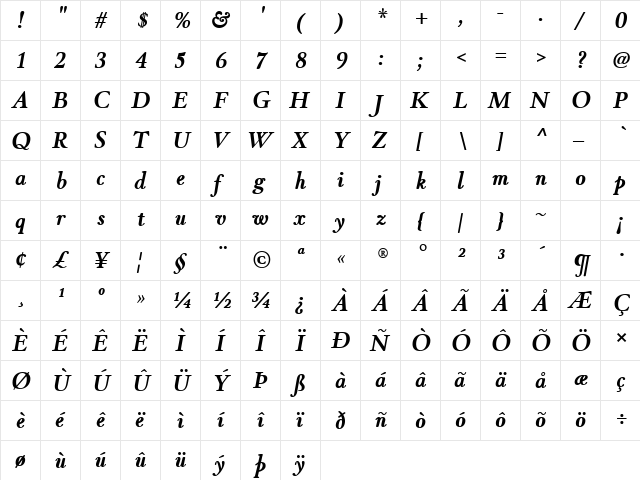
Winthorpe Bold Italic
Design Context for Winthorpe Typeface
Winthorpe is a composed and adaptable typeface that performs quietly and consistently across a wide range of design contexts. The slanted form adds forward momentum and visual energy. The heavy weight commands attention and anchors typographic hierarchies.
Pro Tip: Try Winthorpe for annotation and caption copy alongside an upright companion — the contrast in angle creates a dynamic but ordered typographic system.